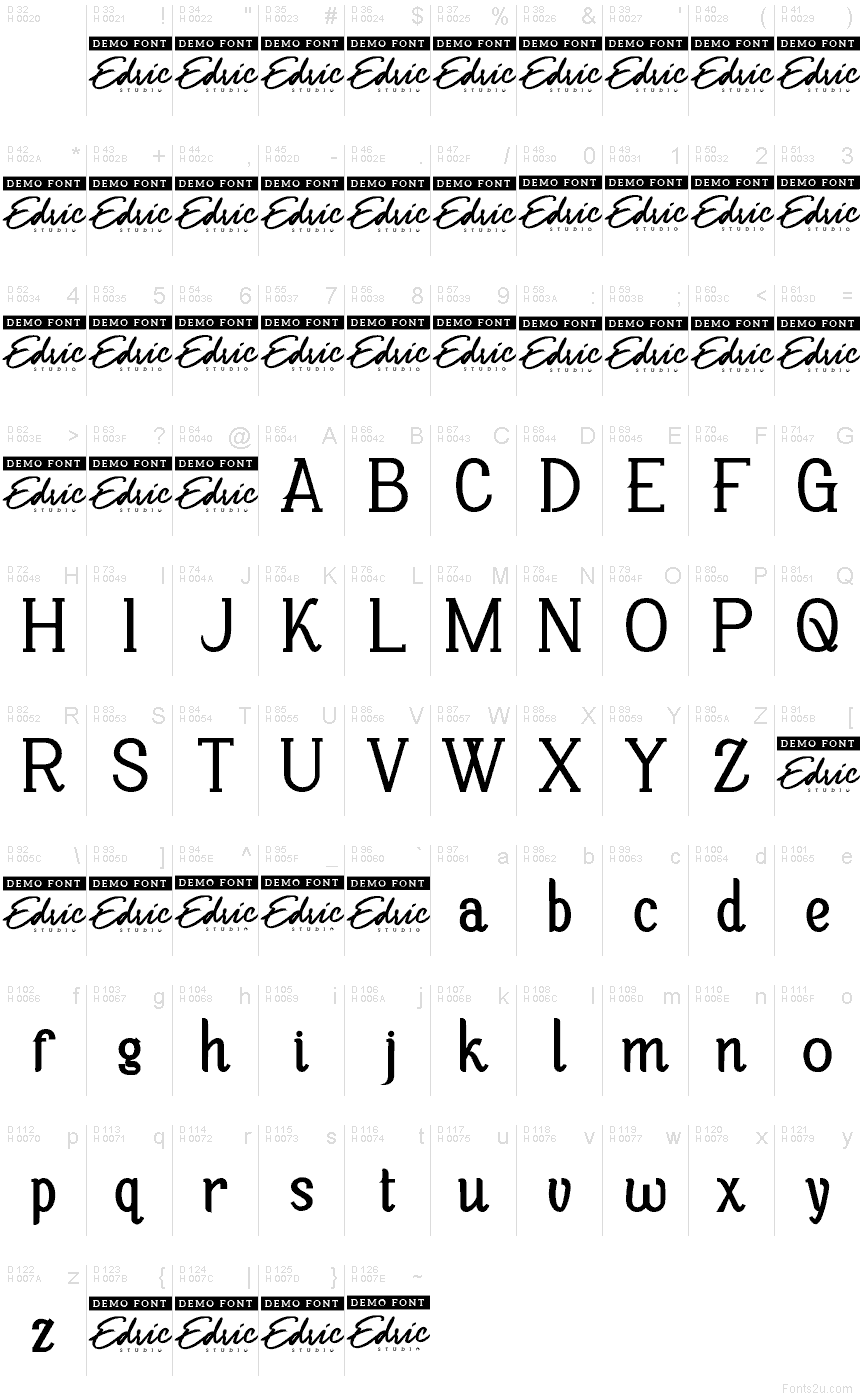
Blue Denim Demo Bold
Blue Denim Bold font by Edric Studio is a free display serif font with an elegant, refined, and classic appearance. It exhibits a vintage feel that makes it traditionally beautiful with a timeless aesthetic. Each letter was built carefully with attention to the smallest details creating an authentic typeface that elevates the overall typography quality and exceptional visual presence.